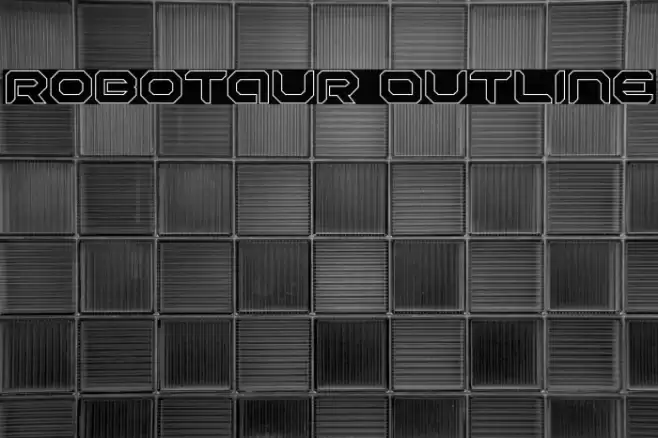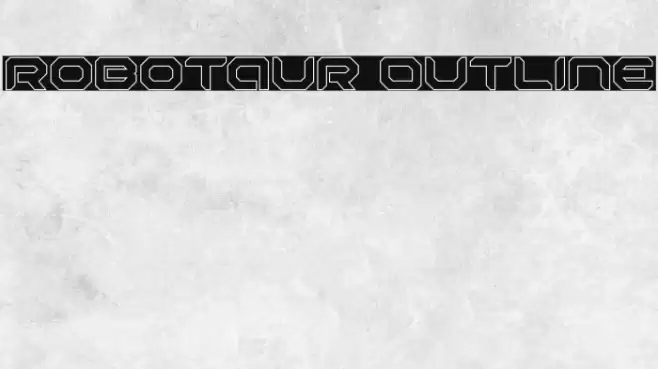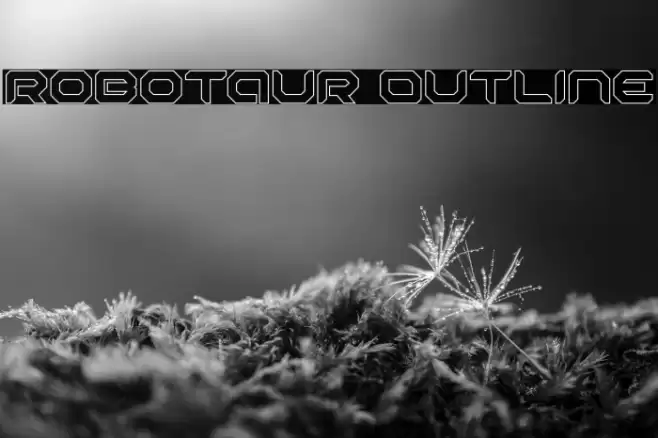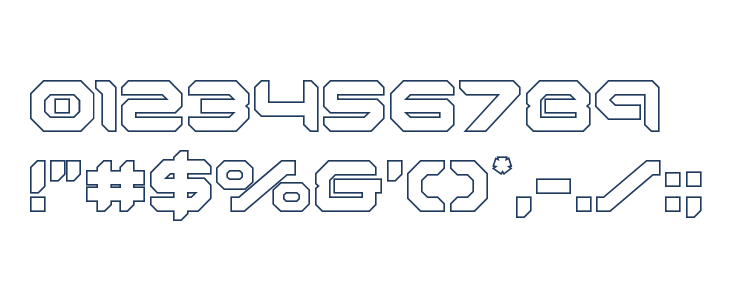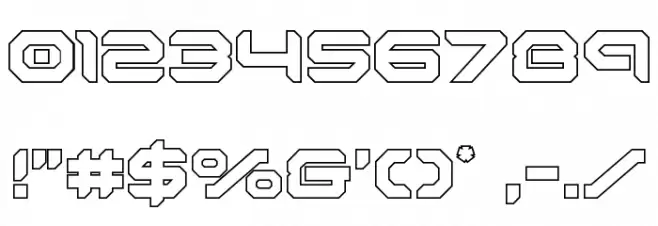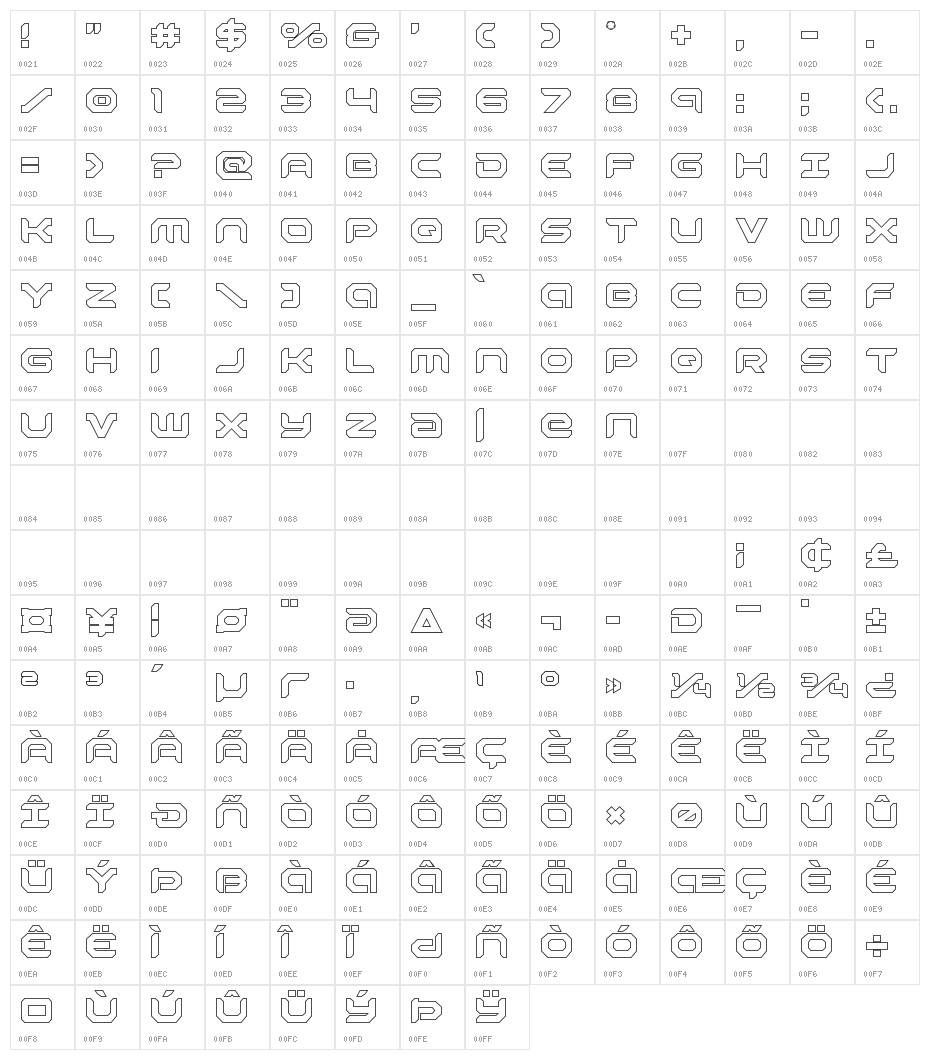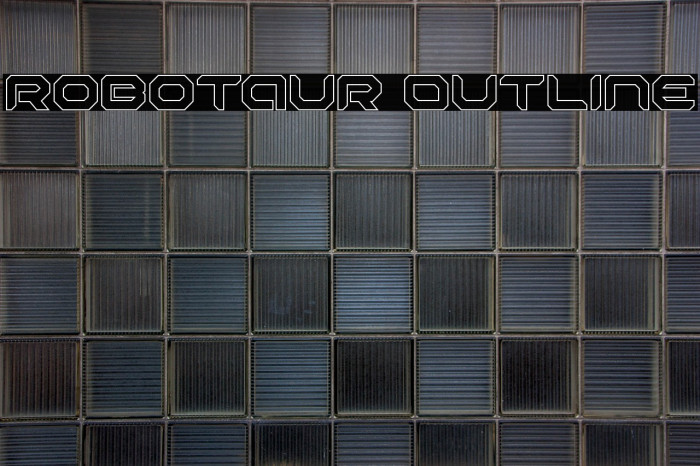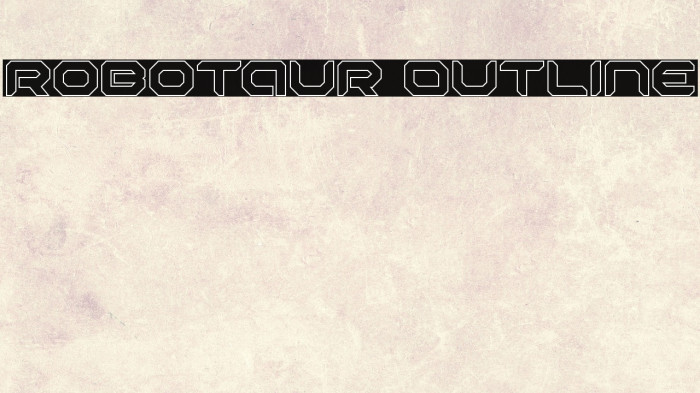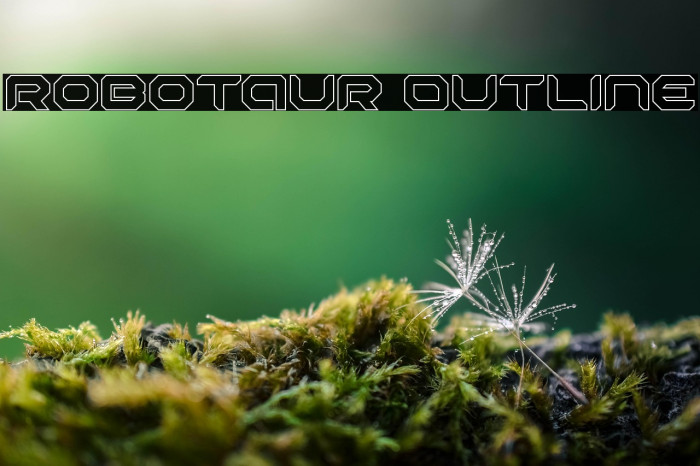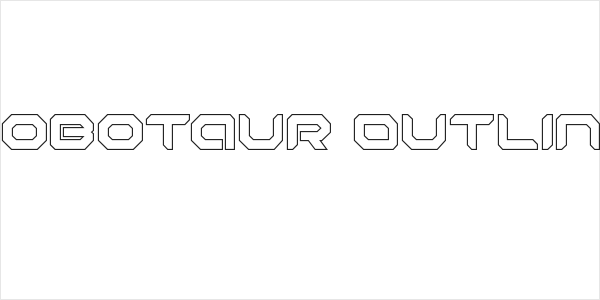
Robotaur Outline Font
Robotaur Outline Description
This font features a futuristic and geometric design with an outline style. Each character is constructed with sharp angles and straight lines, giving it a robotic and mechanical appearance. The uniform thickness of the strokes and the absence of curves contribute to its modern and digital aesthetic. The uppercase and lowercase letters maintain a consistent style, enhancing readability while preserving the unique character of the font. The numerals and special characters are designed to match the overall theme, making it suitable for projects that require a tech-inspired look.
A futuristic, geometric outline font with a robotic aesthetic from Outline fonts.
- Proposed Projects: Ideal for technology-themed designs, video game titles, sci-fi posters, and digital interfaces.